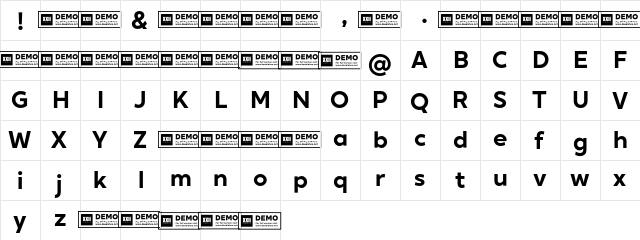
XXII Geom DEMO Bold
| Foundry | Doubletwo Studios |
| Designer | Lecter Johnson |
Design Context for XXII Geom DEMO Typeface
XXII Geom DEMO takes a measured approach to typography — its balanced proportions and neutral character make it a reliable workhorse for both digital and print work. Its bold stroke weight gives it real presence on the page.